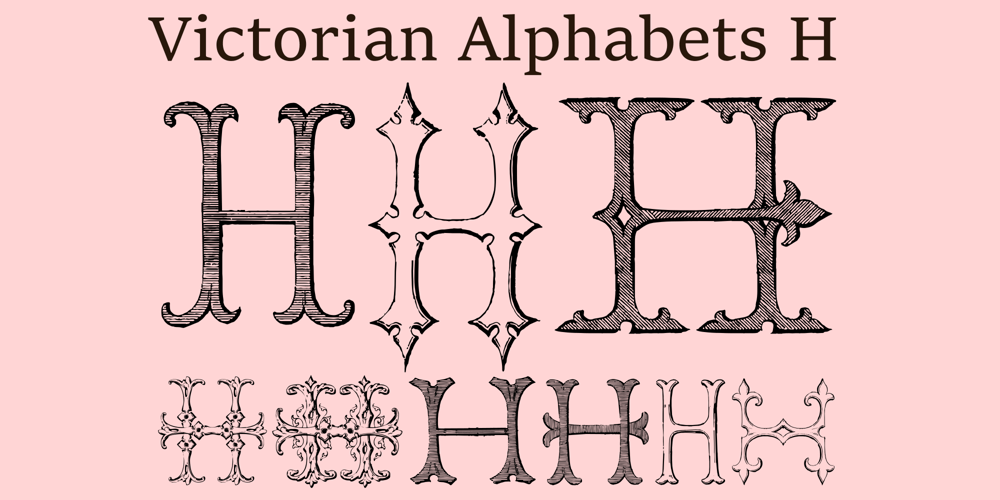
Victorian Alphabets H
Victorian Alphabets H font
Victorian Alphabets H Font Family was designed by Paulo W and published by Intellecta Design. Victorian Alphabets H contains 2 styles and family package options. Victorian Alphabets H is an incredibly cool and classic display font. Elegant and distinct, this font will most certainly elevate your creations. Add it confidently to your projects, and you will love the results. You have a great set of letters “H” using the uppercases, lowercases and numbers keys on the keyboard.Plus, acquiring the Titivilus font you get GREAT DUO combinantion, like you can see i the banners